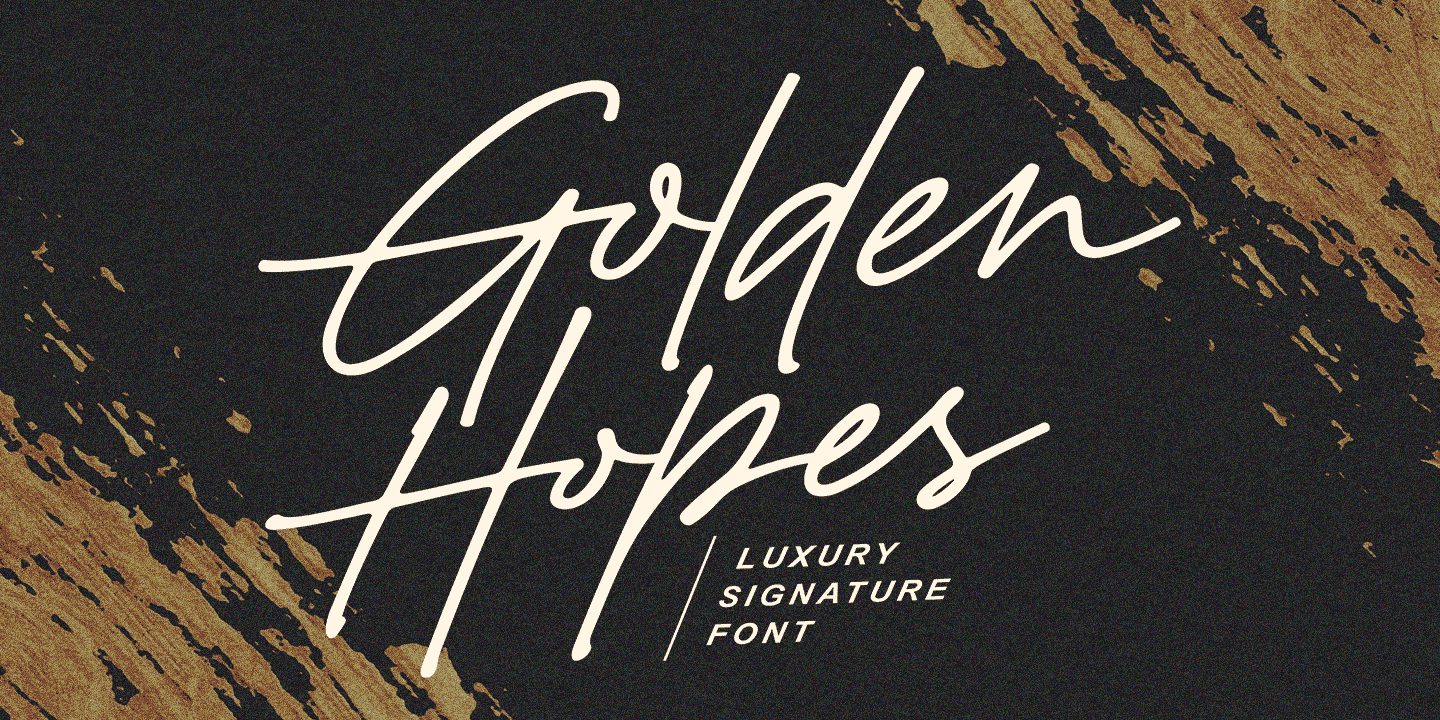
Golden Hopes Font is perfect for inspirational quote designs, motivational poster layouts, wellness brand communications, spiritual organization materials, life coaching branding, positive affirmation graphics, uplifting social media content, hope-centered campaigns, personal development resources, and optimistic marketing messages. This uplifting script typeface brings radiant positivity and aspirational energy to inspiring design applications.
What makes Golden Hopes Font so exciting is its extraordinary ability to capture the essence of optimism and human potential through letterforms that seem to glow with inner light and positive energy. The font features gracefully flowing characters with gentle curves and uplifting proportions that naturally convey hope, inspiration, and forward momentum. Its distinctive characteristics include warm, embracing letter shapes, smooth connecting strokes, and elegant flourishes that create an immediate sense of possibility and renewal. The font's inherently positive character and aspirational quality make Golden Hopes Font perfect for brands and messages seeking to inspire, motivate, and uplift audiences while communicating genuine care and emotional support.
The Golden Hopes Font family includes multiple stylistic variations: Regular, Bold, Light, and Flourish versions with inspirational decorative elements. The comprehensive character set features uppercase and lowercase letters with uplifting alternates, connecting ligatures, hopeful numerals, encouraging punctuation marks, and heart-warming symbols that enhance positive messaging. Professional features include contextual alternates that improve script flow, inspirational swash elements, decorative flourishes that add emotional resonance, and optimistic spacing that creates natural rhythm and uplifting visual movement throughout text compositions.
Whether you're creating motivational content, wellness brand materials, or inspirational communications, Golden Hopes Font Free Download provides the radiant typography that transforms ordinary messages into sources of genuine inspiration and hope. Its exceptional emotional resonance makes it perfect for life coaches, wellness practitioners, spiritual organizations, and any brand focused on human potential and positive transformation, while its uplifting character ensures memorable impact that genuinely touches hearts and minds. The font's combination of spiritual warmth and professional quality makes it essential for designers working with hope-centered brands, personal development content, and any project seeking to communicate the transformative power of optimism, possibility, and the golden light of human potential that shines within every inspiring message.